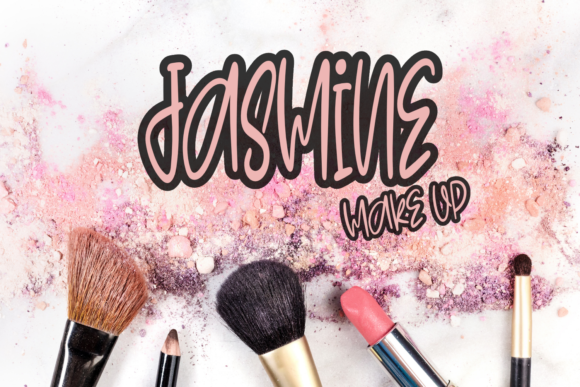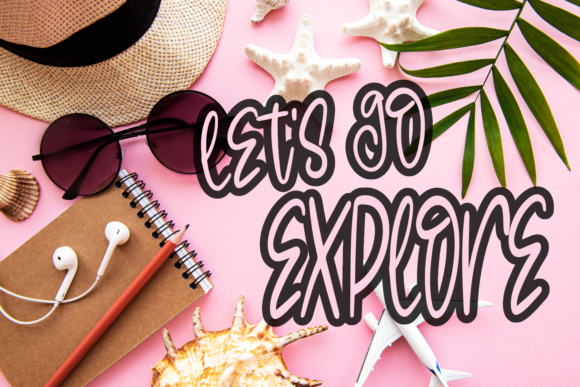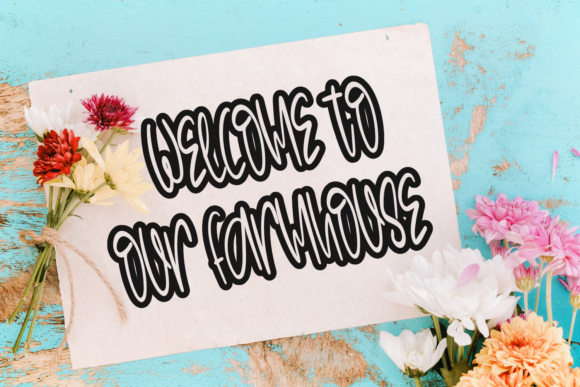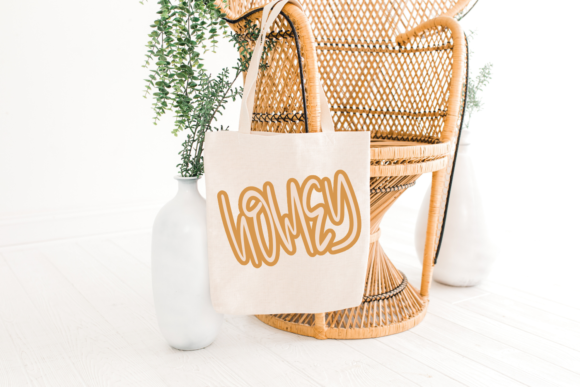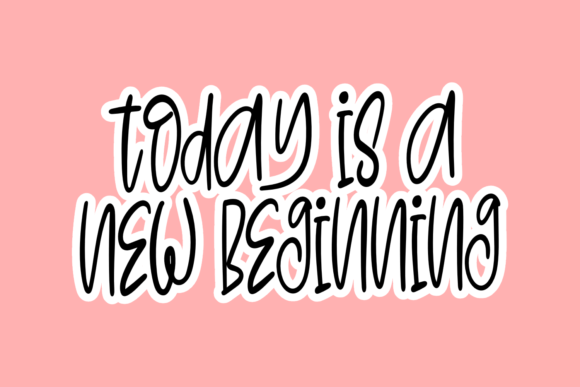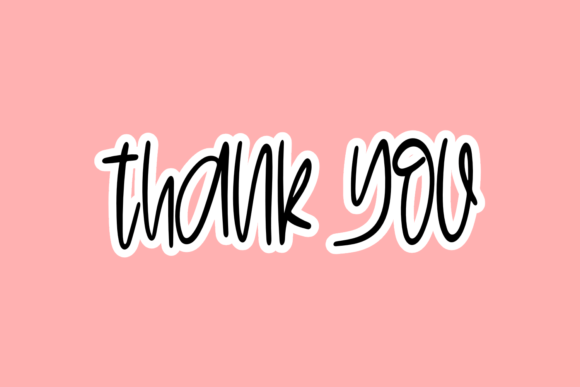
Introduction to Mr Sparkling Font
Mr Sparkling is a fun and quirky handwritten font.
Its flexibility and neat style will brighten up each of your designs Have fun with this cool font and explore its endless variations.